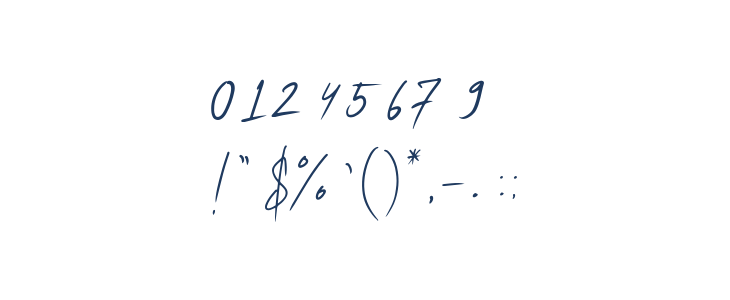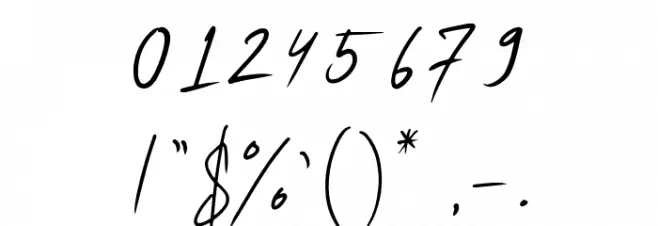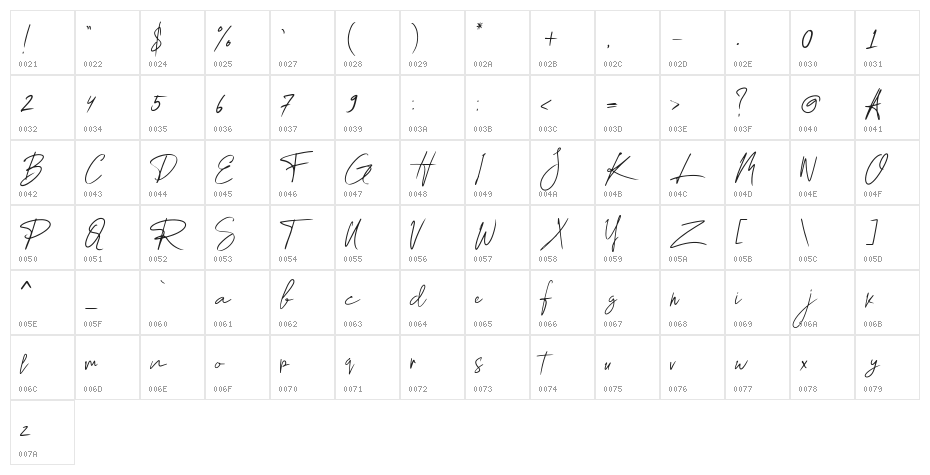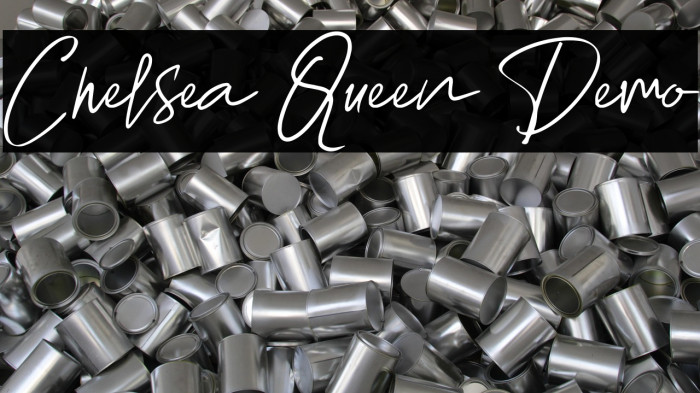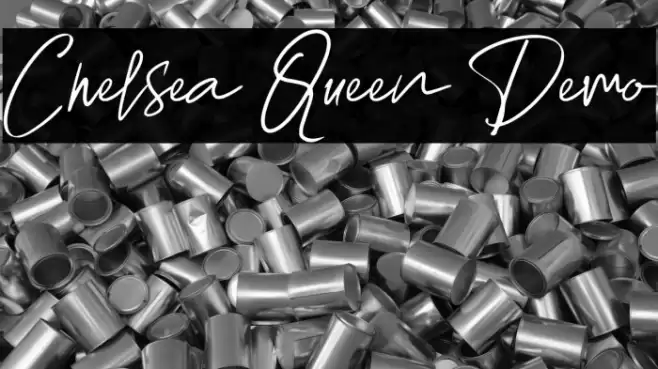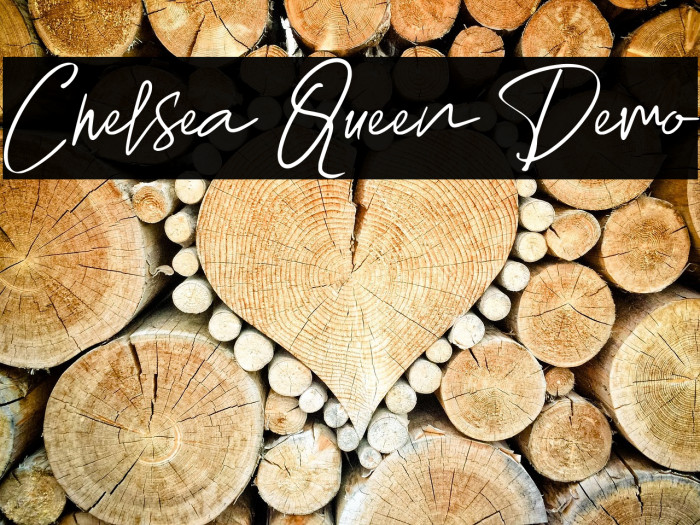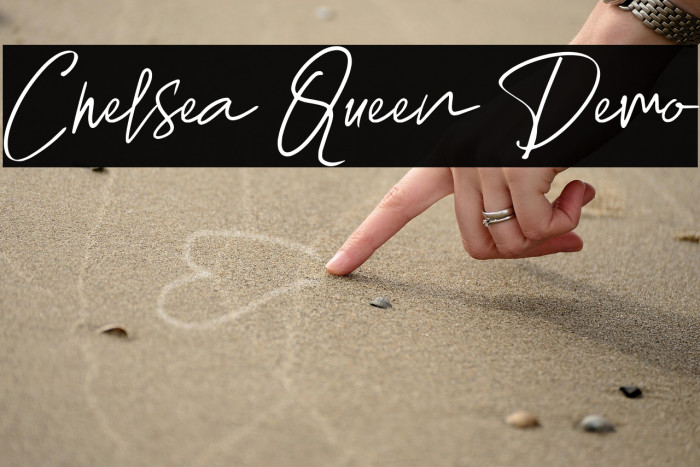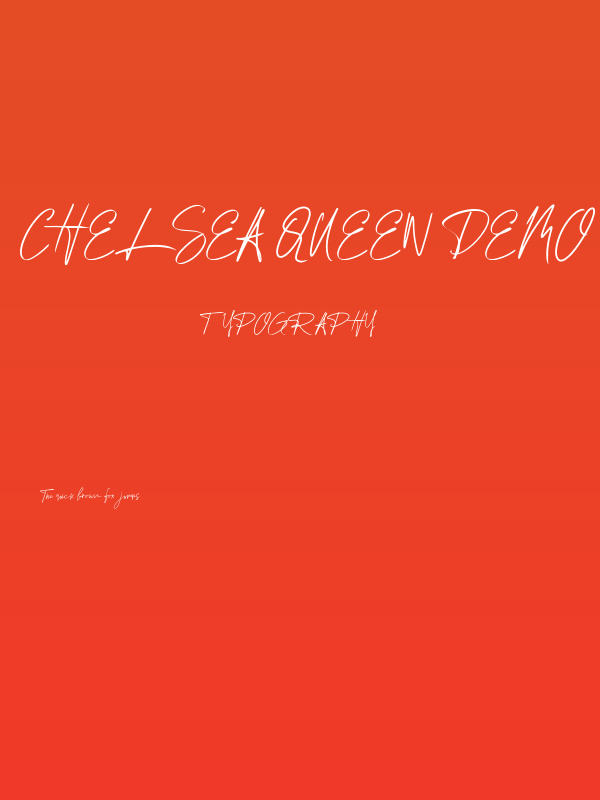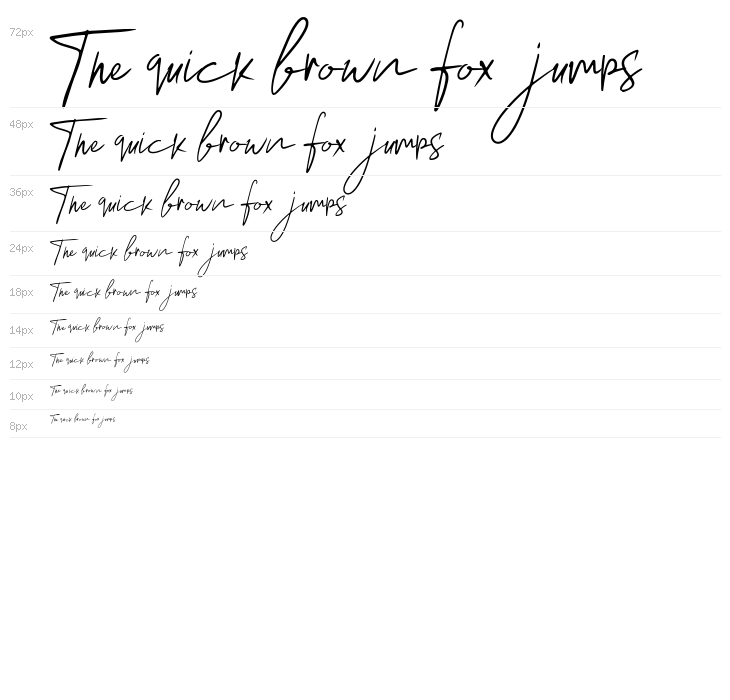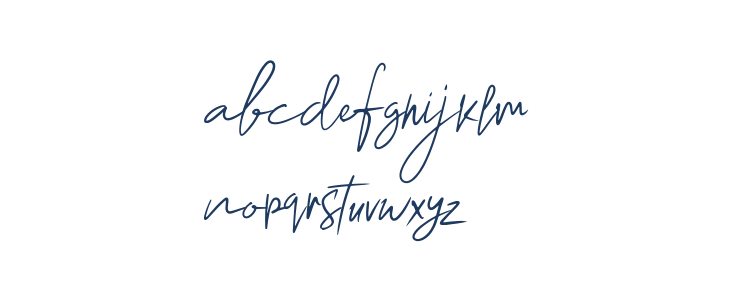
Chelsea Queen Demo Font
Chelsea Queen Demo Description
This font exudes a lively and elegant handwritten style, characterized by its fluid and dynamic strokes. The uppercase letters are tall and slightly slanted, giving a sense of movement and grace. The lowercase letters maintain a consistent flow, with some characters featuring unique loops and flourishes that add a personal touch. The numerals are distinct and maintain the same handwritten aesthetic, ensuring consistency across all characters. Special characters are thoughtfully designed to match the overall style, making this font versatile for various creative applications.
Use CaseLogos, Invitations, Artistic projects
Proposed ProjectsIdeal for wedding invitations, personal branding, greeting cards, and artistic projects requiring a personal touch.